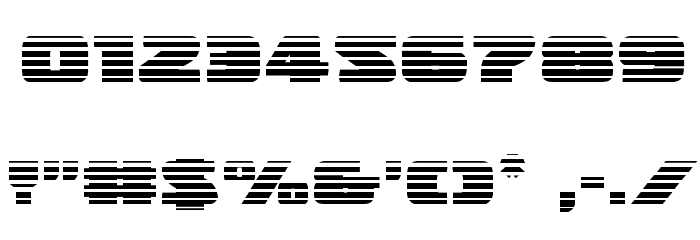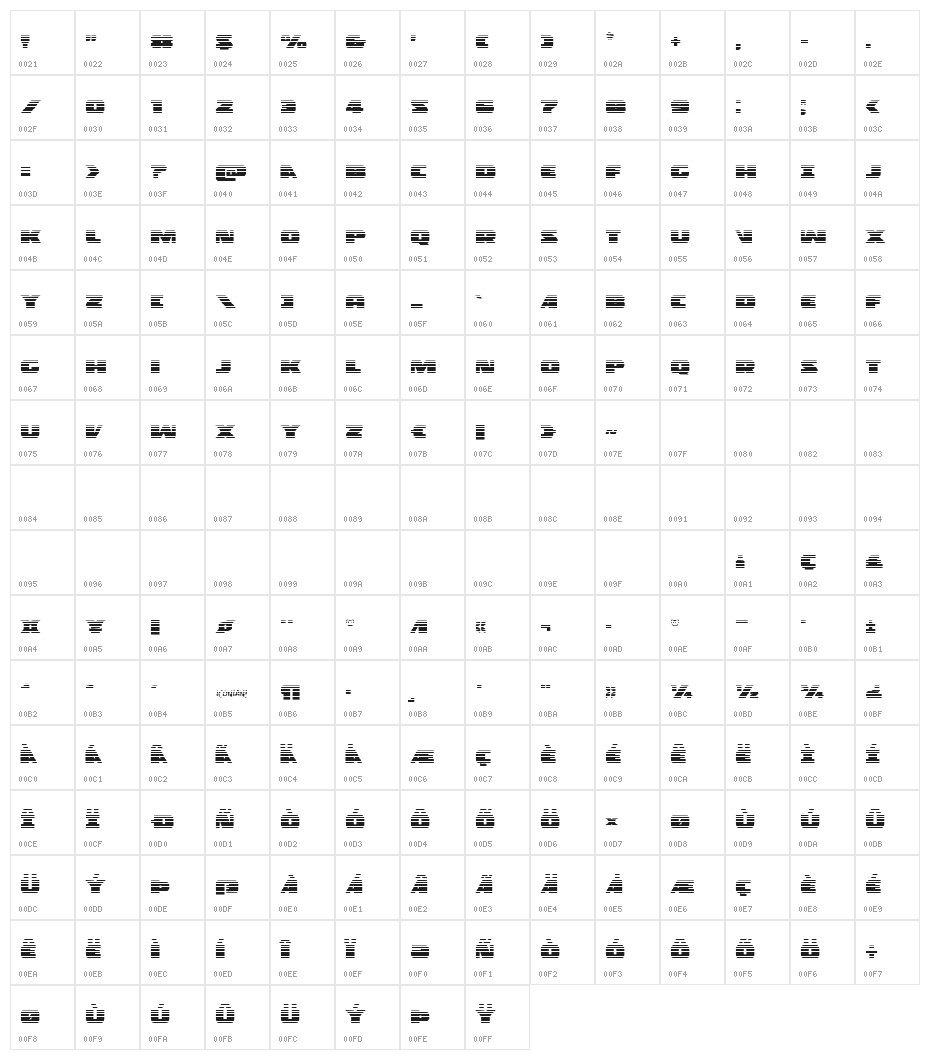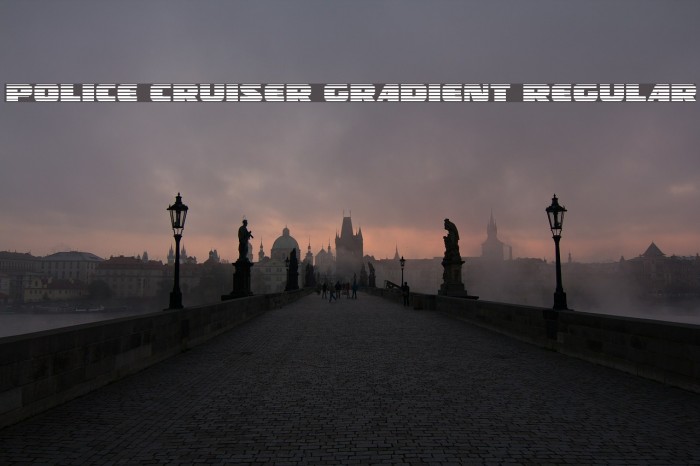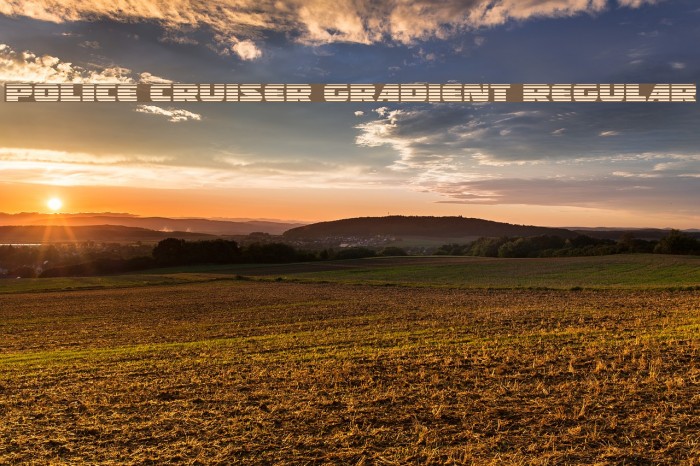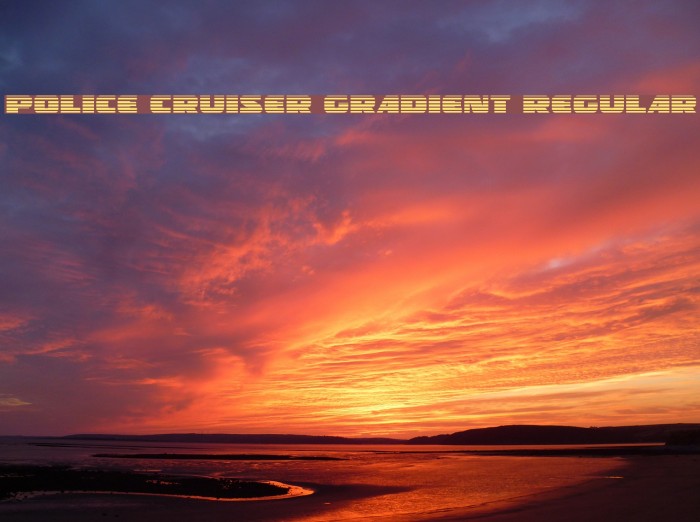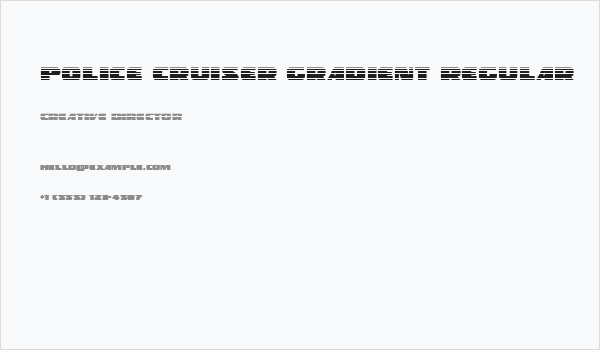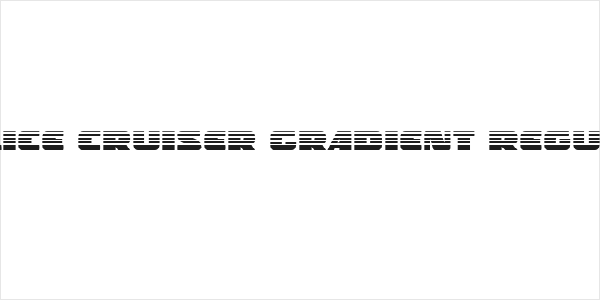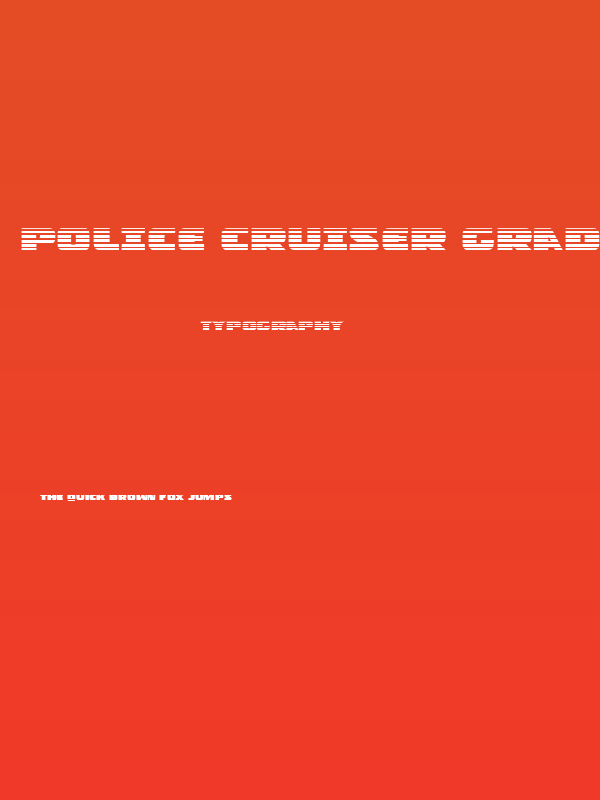
Police Cruiser Gradient Regular Font
Police Cruiser Gradient Regular Description
This font features a bold, futuristic design with a distinct gradient effect created by horizontal lines cutting through each character. The uppercase letters are robust and impactful, making them ideal for attention-grabbing headlines. The numbers and special characters maintain the same stylistic approach, ensuring consistency across all text elements. The font's unique style is reminiscent of digital displays or high-tech interfaces, making it suitable for modern, tech-oriented projects.